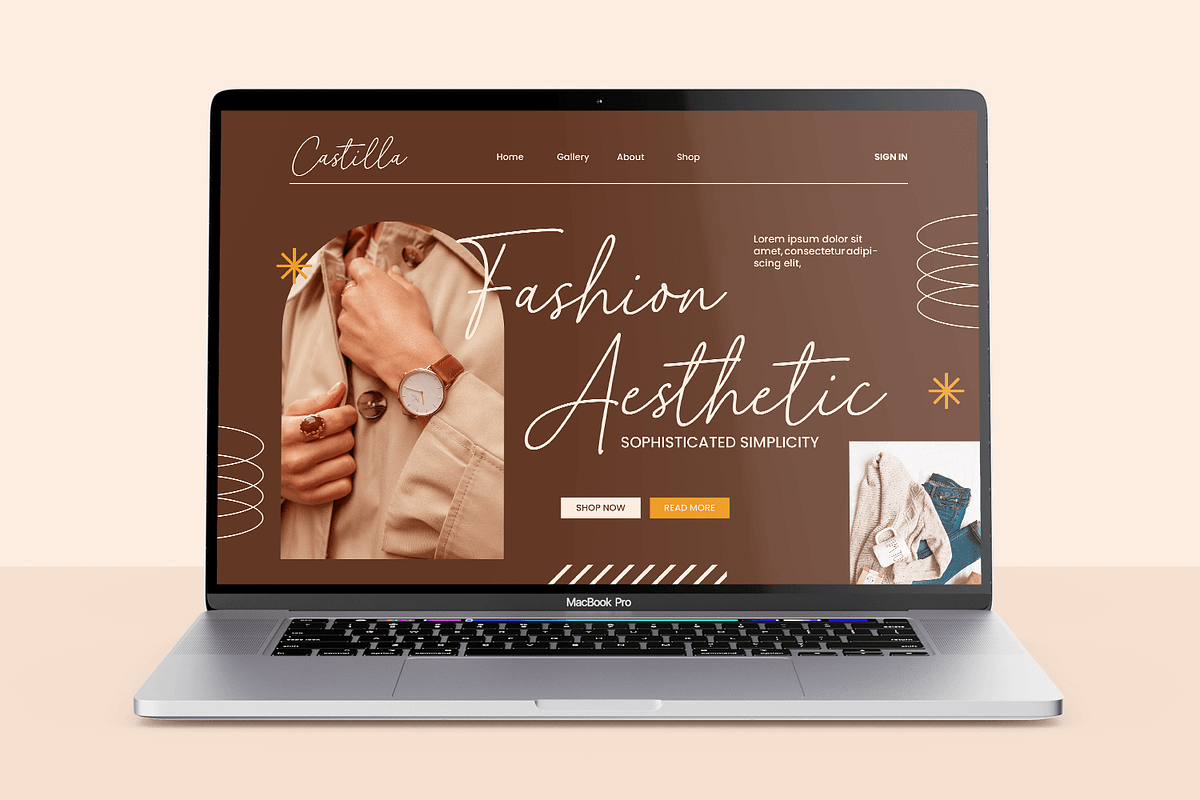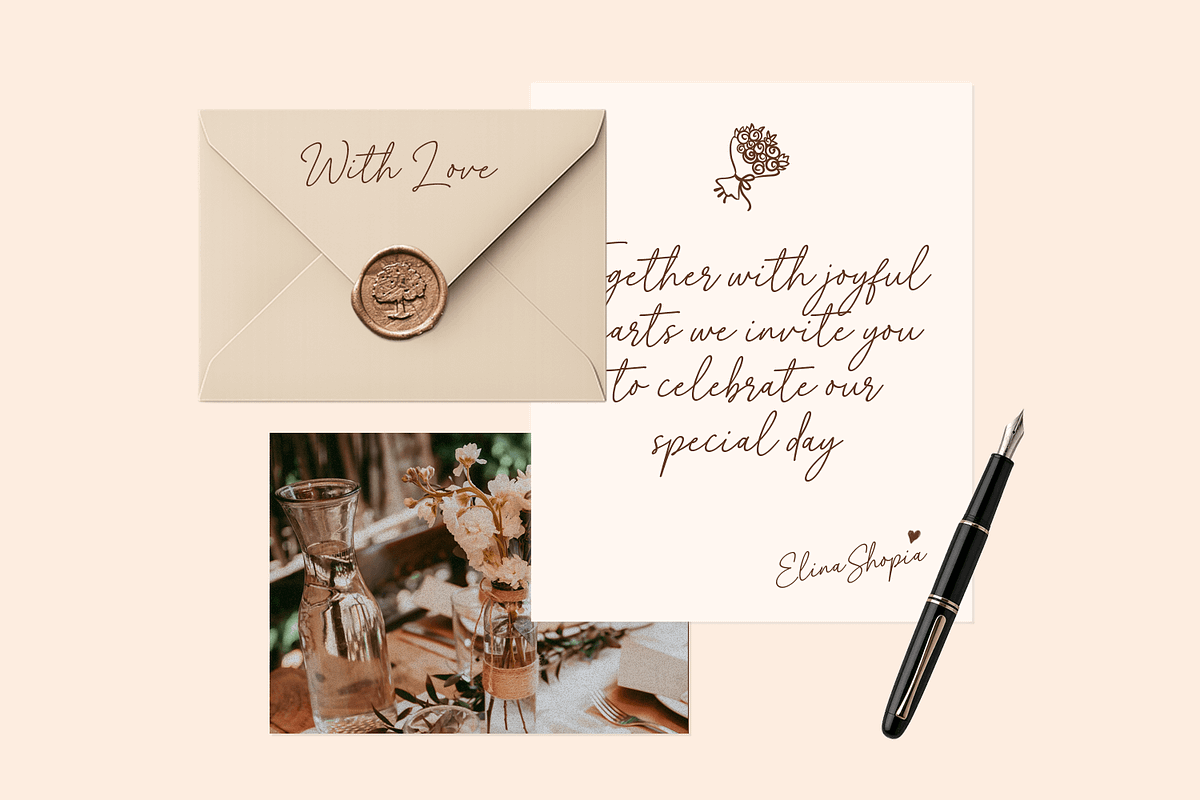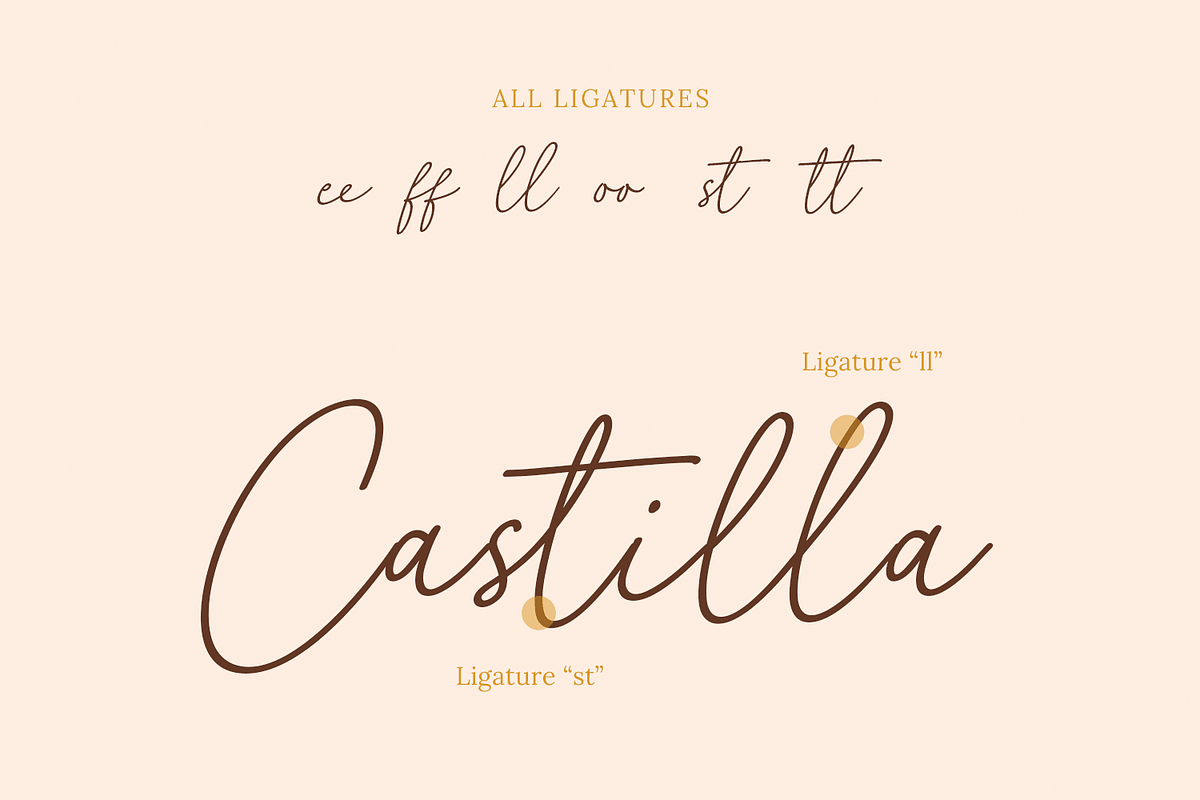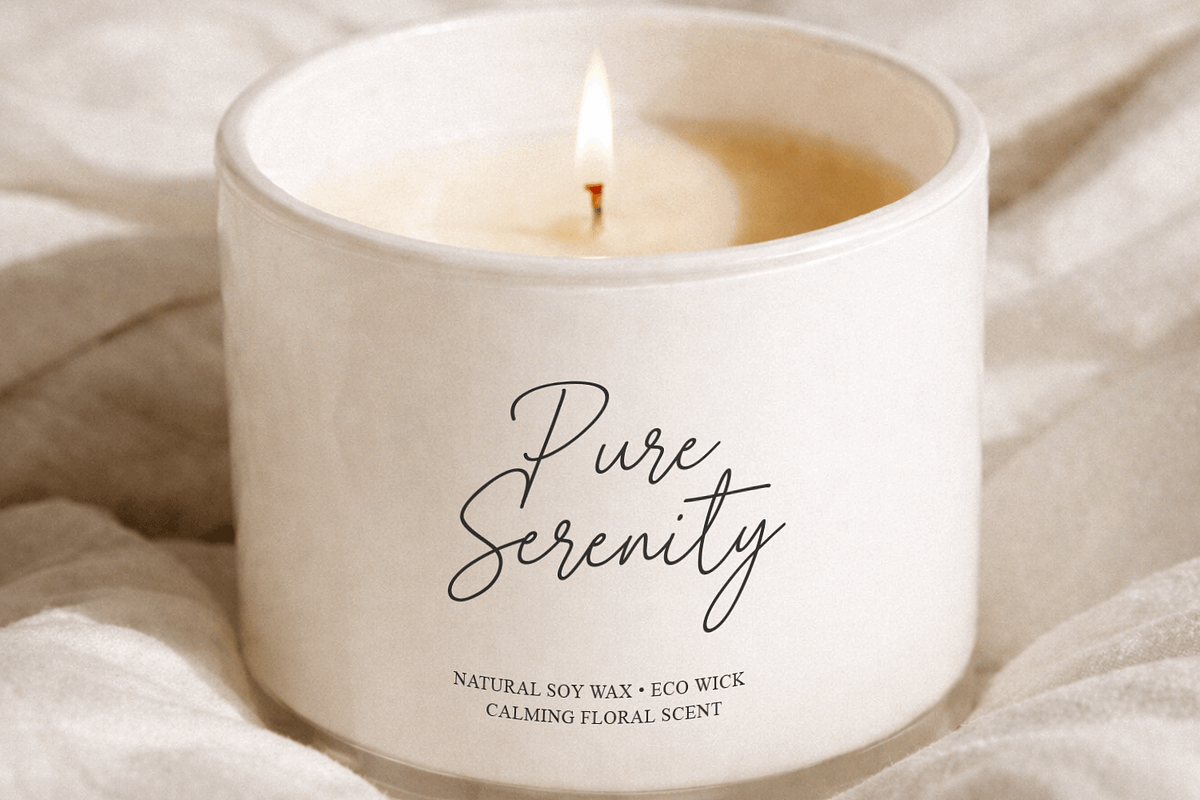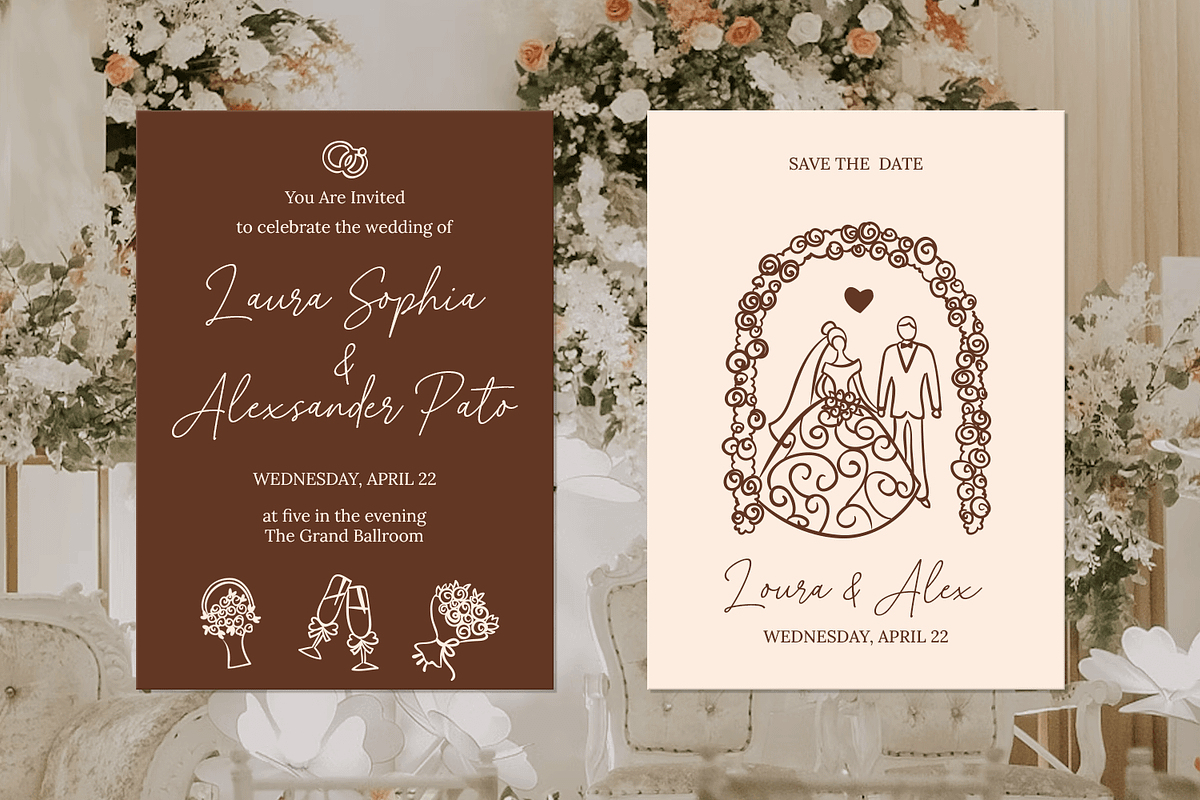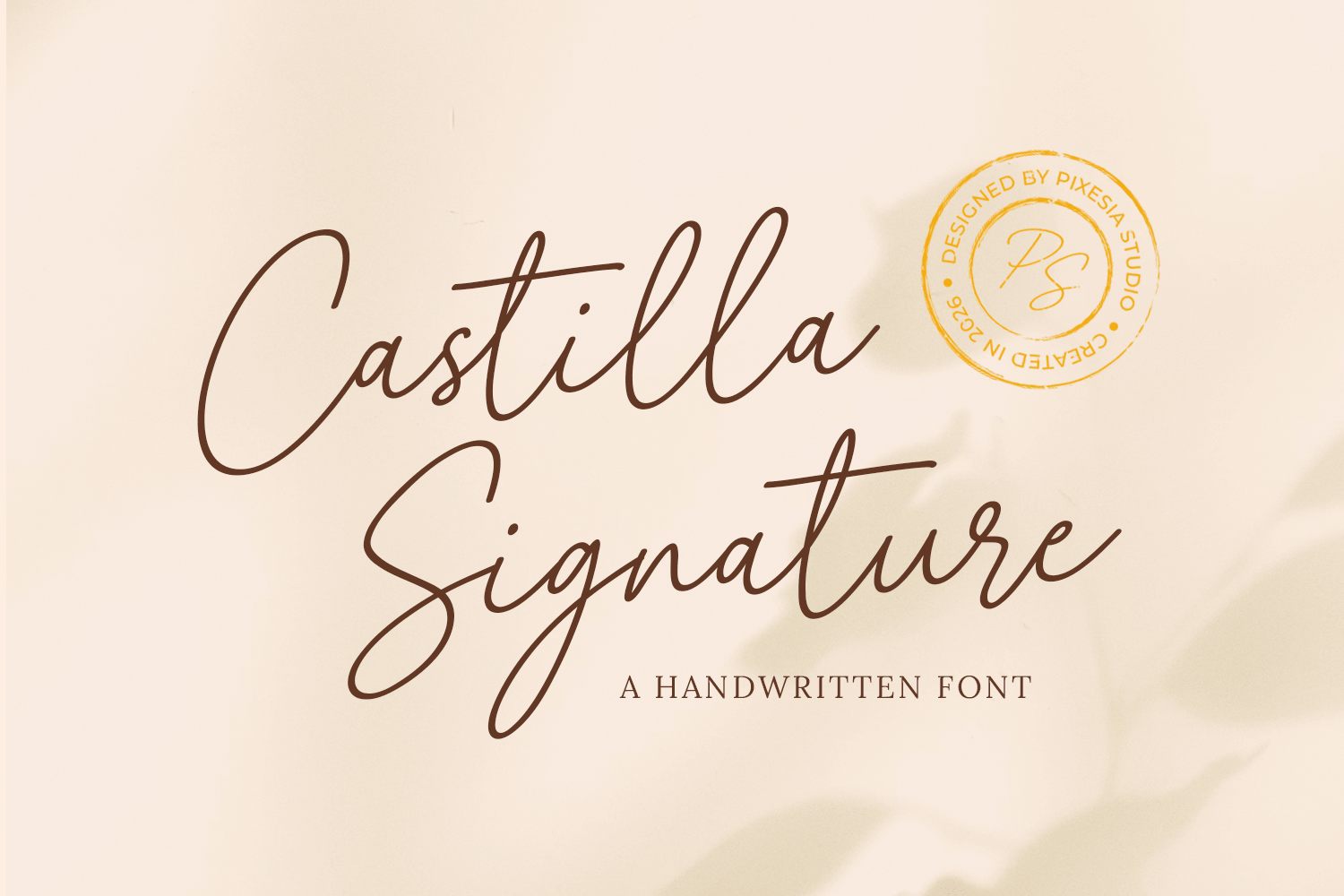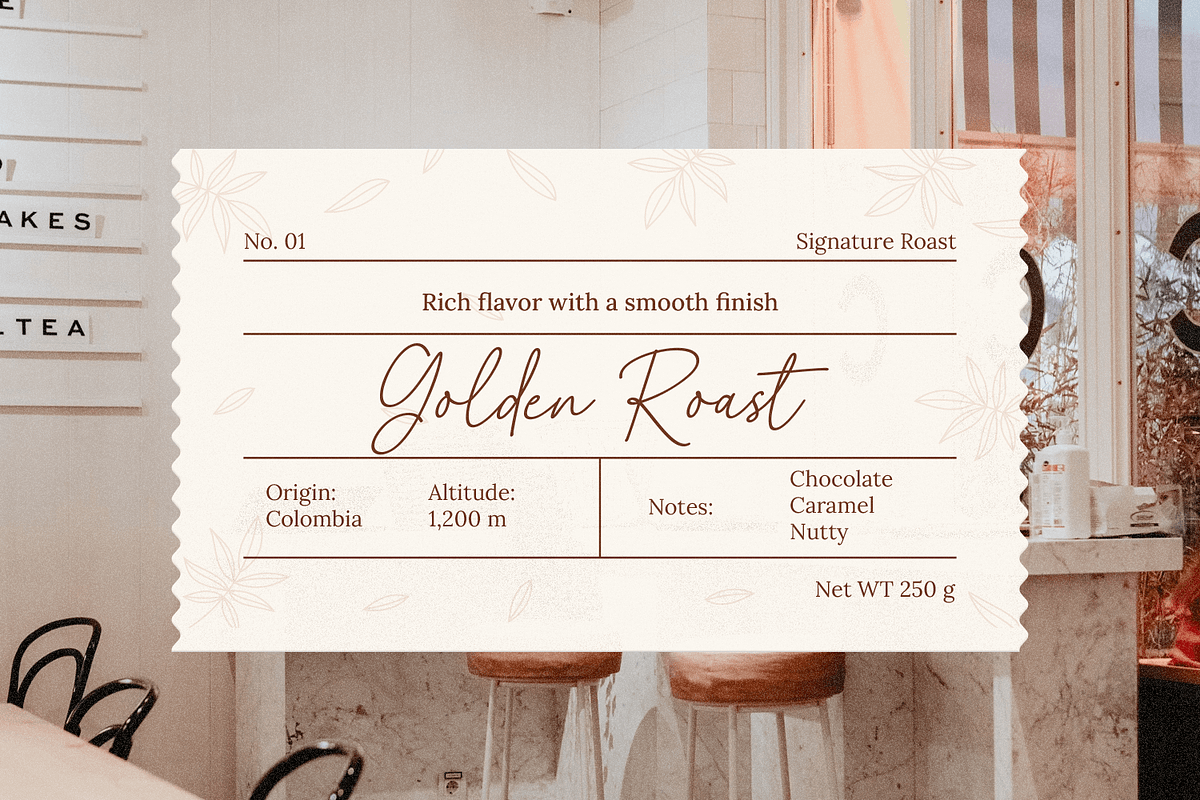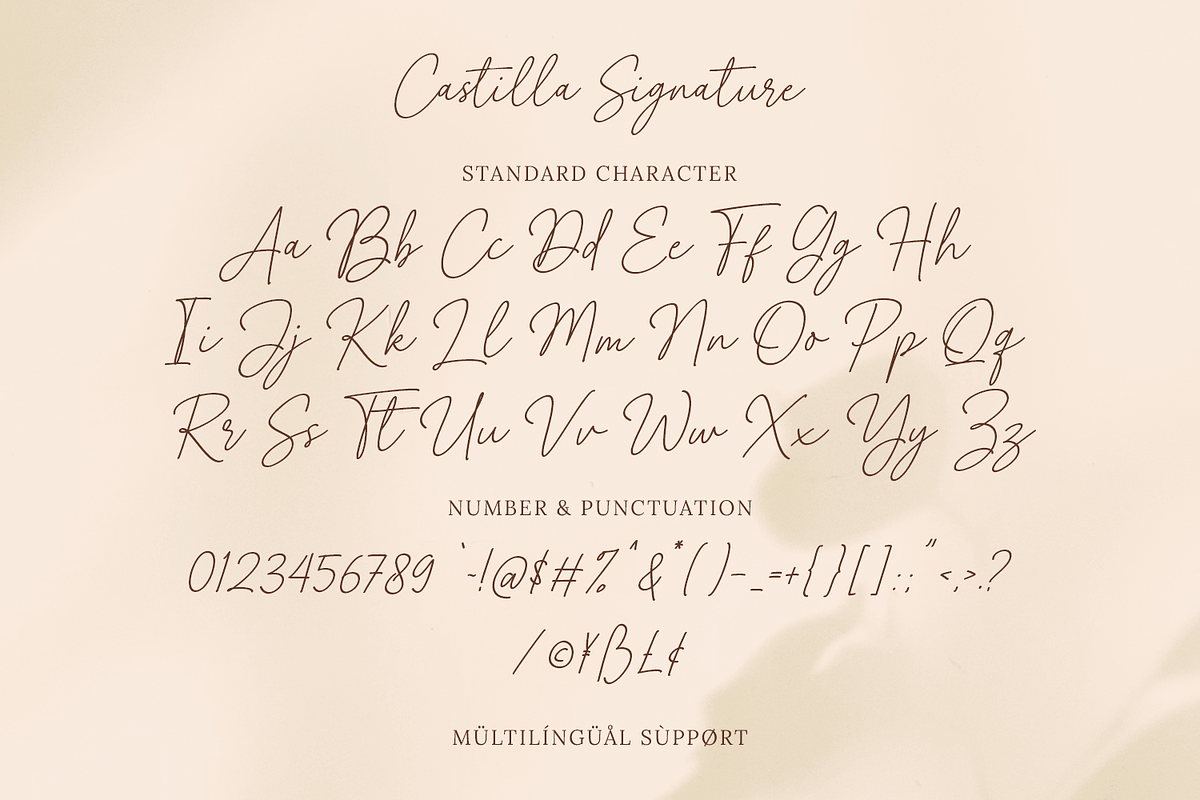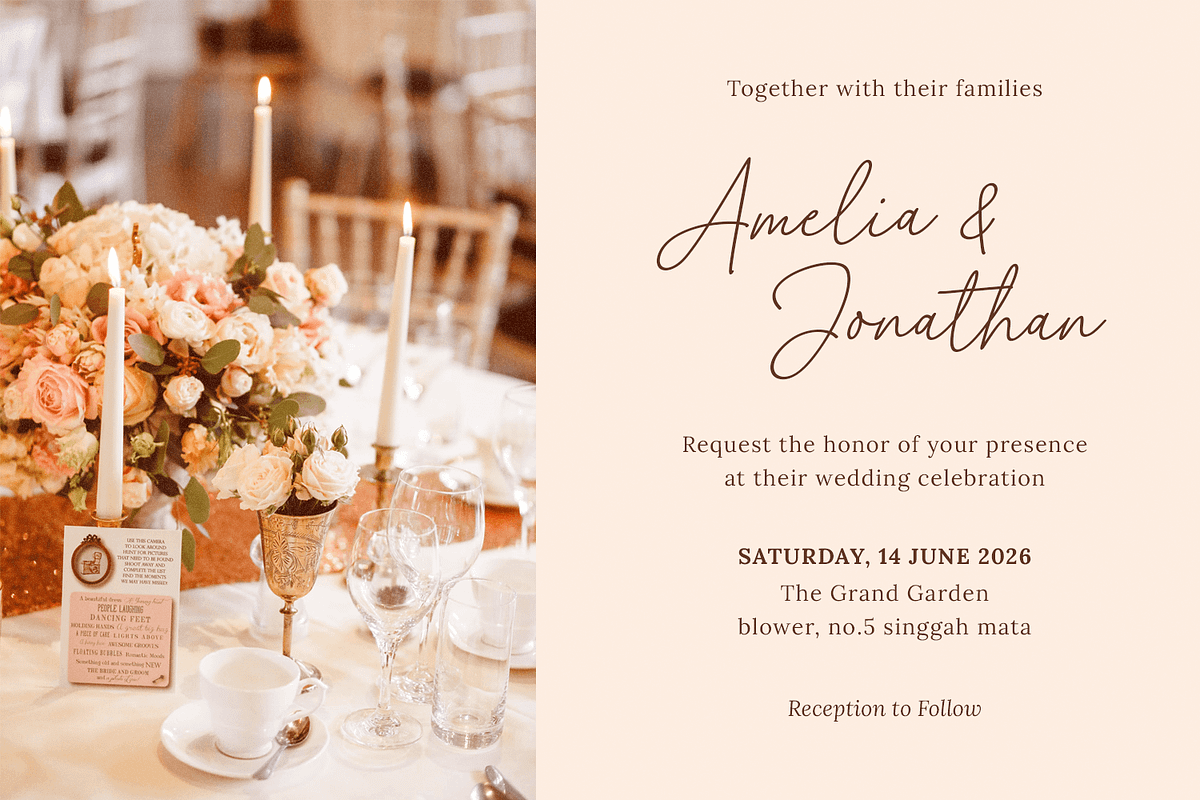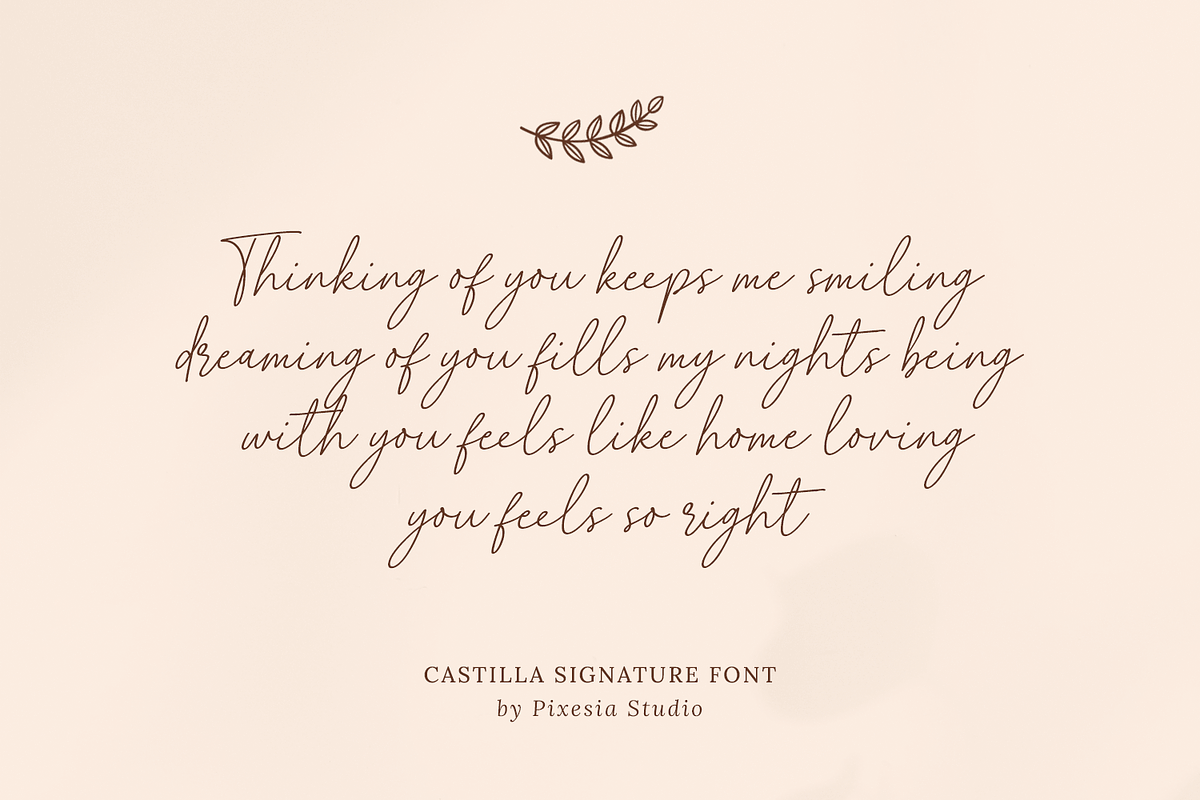
Castilla Signature Handwritten Font
Introducing Castilla Signature - Modern Handwritten Font
Castilla Signature is a refined handwritten script font that captures the beauty of natural handwriting with a smooth and elegant flow. Its delicate curves and balanced strokes create a sophisticated signature-style look, making it perfect for designs that require a personal yet luxurious touch. The font feels graceful, modern, and effortlessly stylish.
Ideal for branding, logos, labels, photography, advertising, product packagaing, stationery, wedding invitations, fashion projects, social media, and personal signatures, Castilla Signature adds a sense of elegance and authenticity to any composition. Whether you're crafting a premium identity or a romantic design, this font delivers timeless charm and visual harmony.
Multilingual Support including Afrikaans, Albanian, Basque, Catalan, Danish, Dutch, English, Estonian, Faroese, Filipino, Finnish, French, Galician, German, Icelandic, Indonesian, Irish, Italian, Malay, Norwegian Bokmål, Portuguese, Spanish, Swahili, Swedish, Zulu